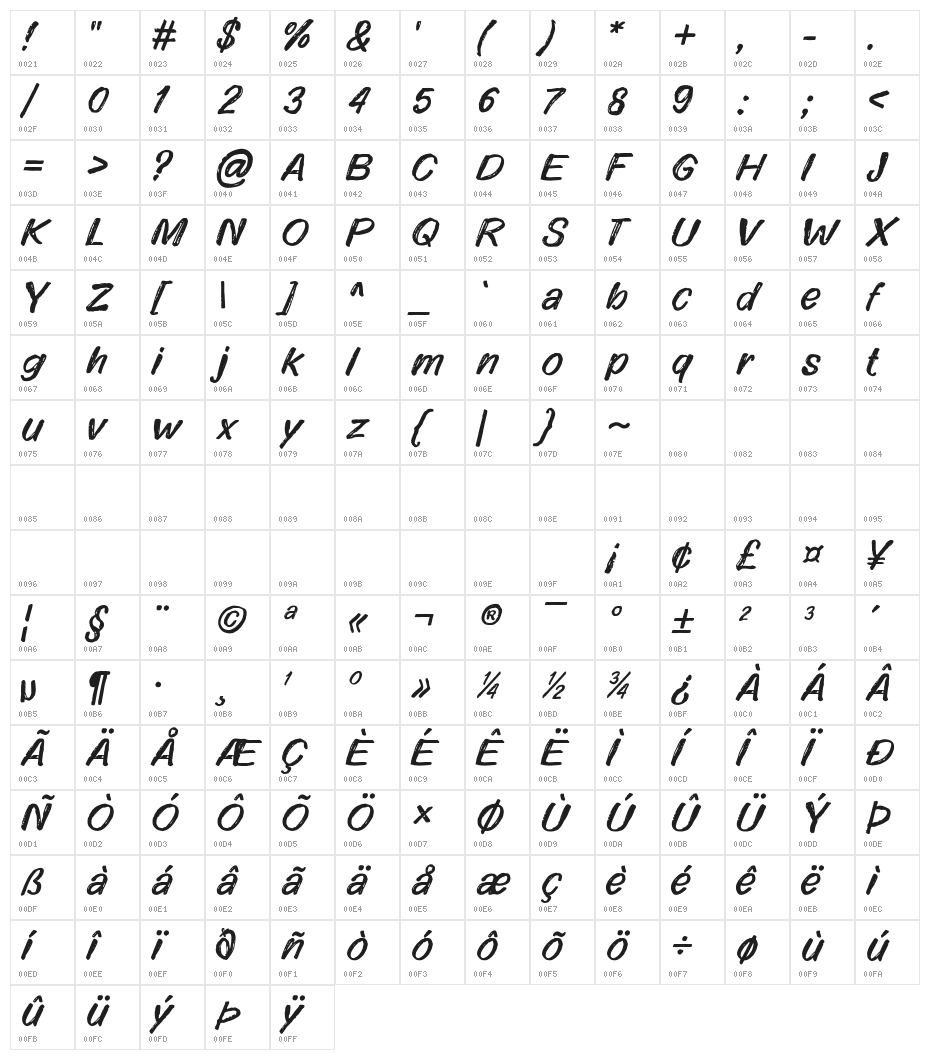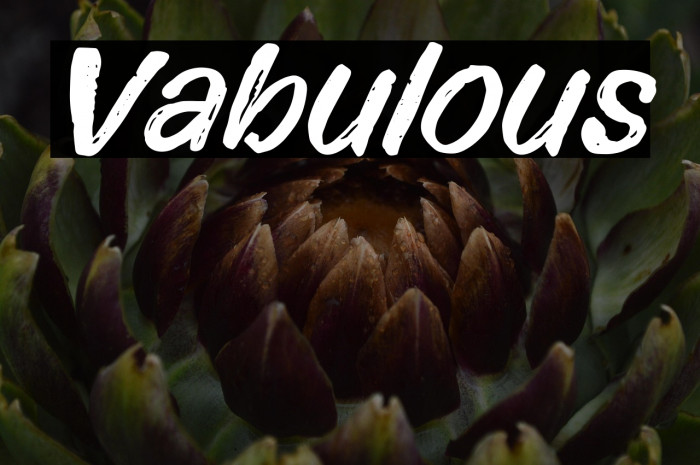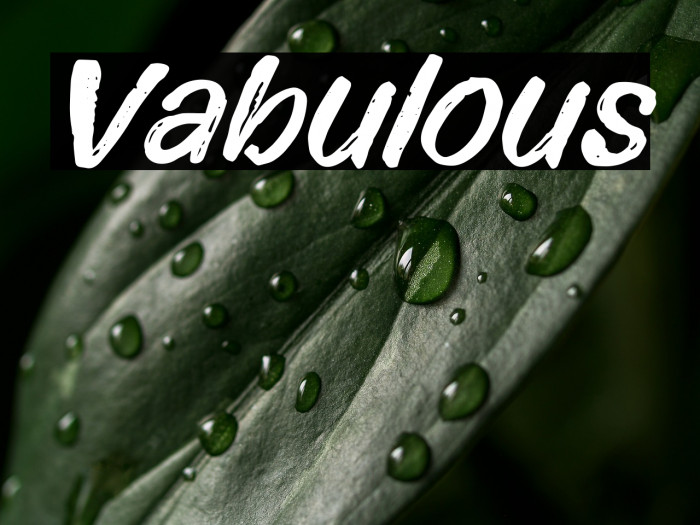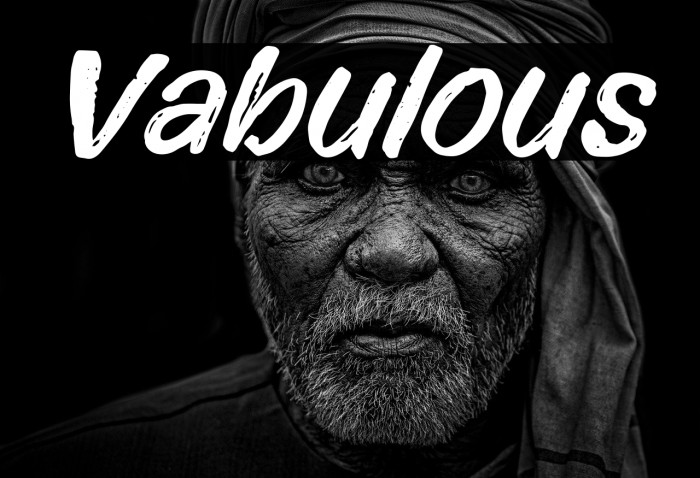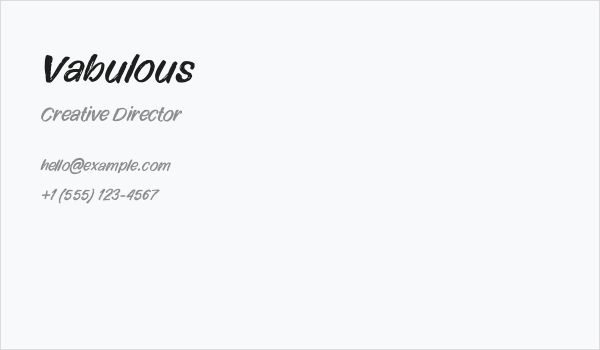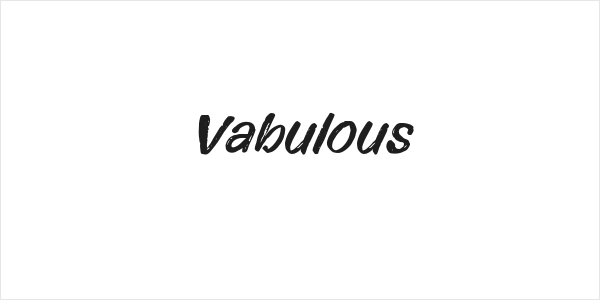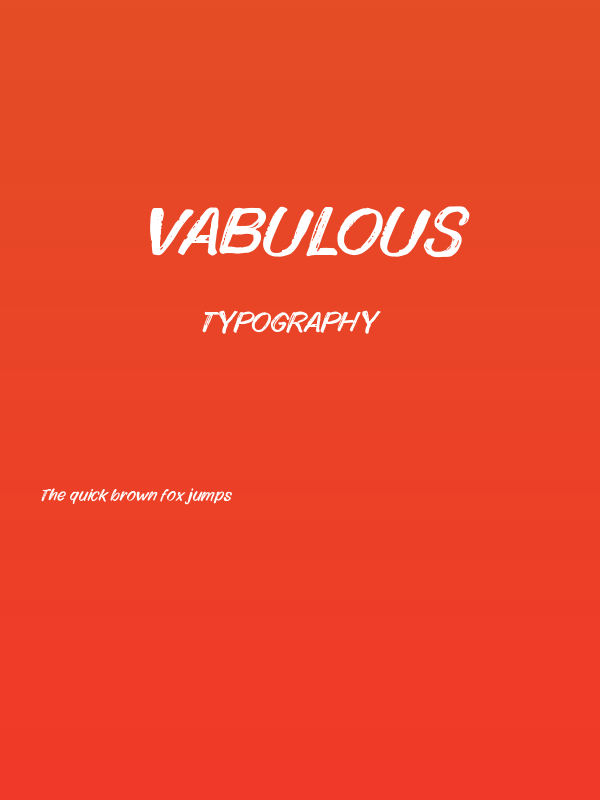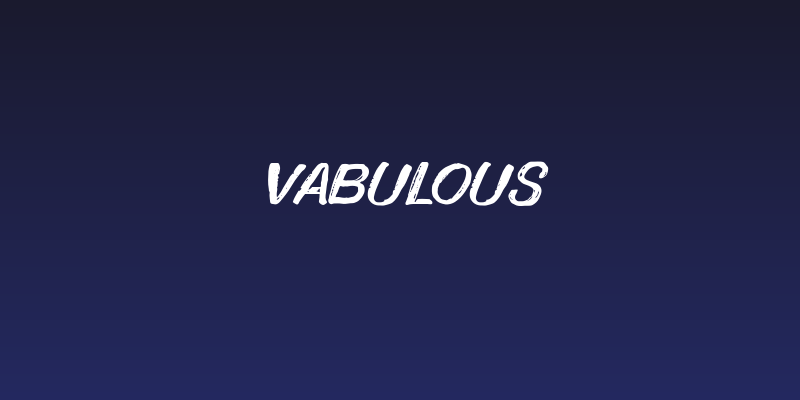
Vabulous Font
Vabulous Description
This font exudes a bold and energetic style, characterized by its brush-like strokes that give it a dynamic and handcrafted appearance. The letters are slightly slanted, adding a sense of movement and fluidity. Each character is distinct with varying stroke thickness, creating a lively texture that captures attention. The uppercase and lowercase letters maintain a consistent style, while the numerals and special characters complement the overall aesthetic. This font is ideal for projects that require a personal touch or a creative flair, making it suitable for artistic and expressive designs.